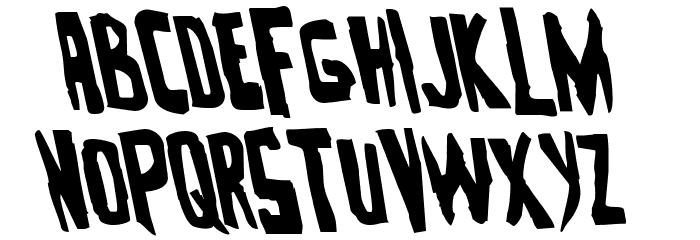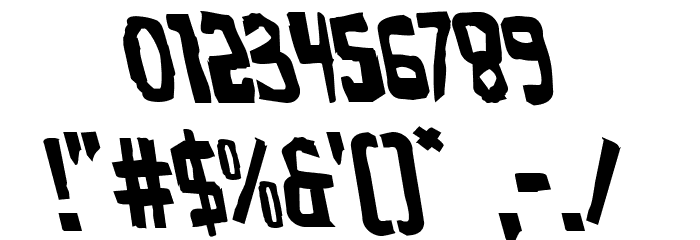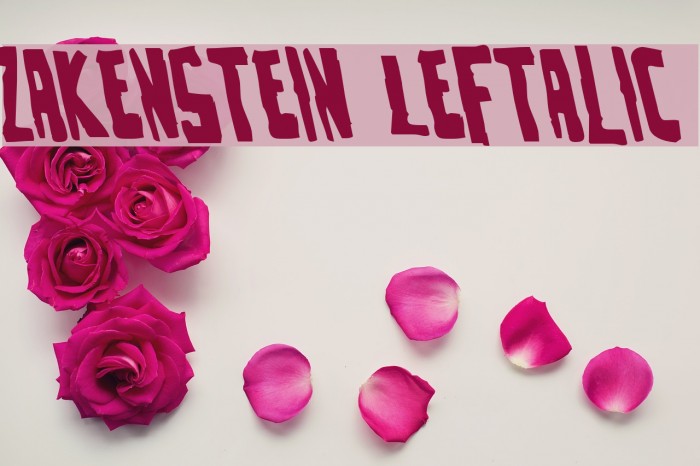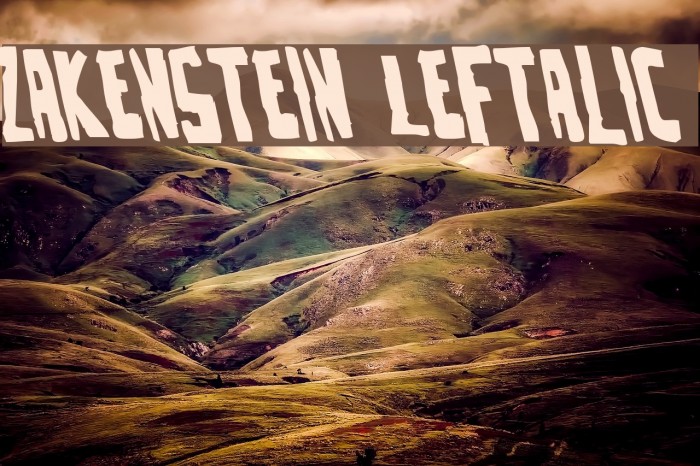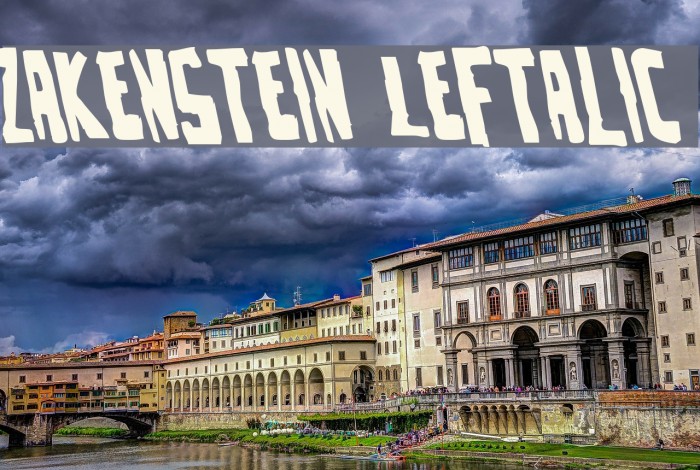
Zakenstein Leftalic Font
This font features a bold and jagged design, with each character appearing as if it has been carved or chiseled. The letters have an irregular, angular form that gives them a dynamic and edgy appearance. The uppercase and lowercase letters maintain a consistent style, with sharp edges and varying stroke widths that contribute to a high-contrast look. The numbers and special characters follow the same aesthetic, ensuring a cohesive appearance across all glyphs. This font's unique style makes it stand out, offering a sense of movement and energy.
A bold, jagged font with a chiseled, high-contrast design.
- Proposed Projects: Ideal for horror-themed posters, edgy branding, album covers, and video game titles.